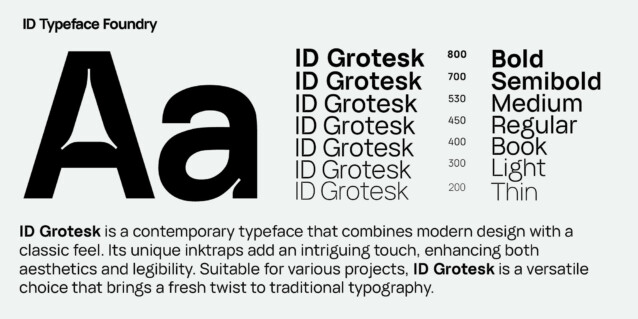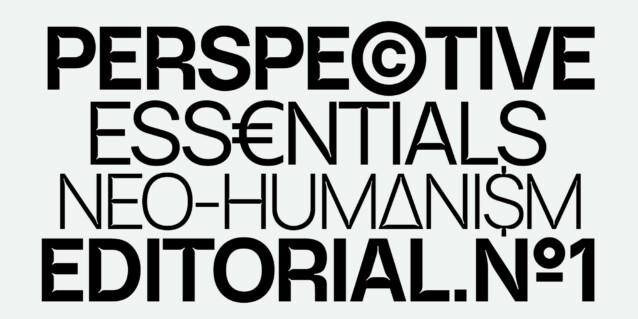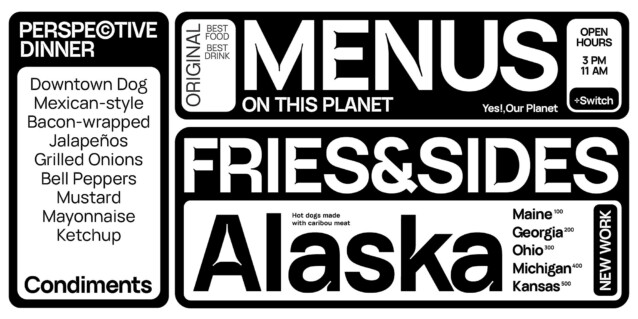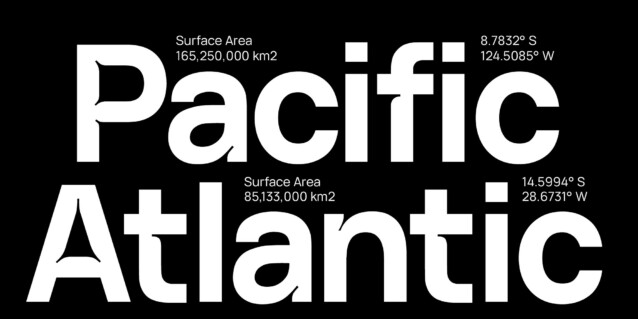
ID Grotesk Font is a contemporary typeface that combines modern design with a classic feel. Its unique inktraps add an intriguing touch, enhancing both aesthetics and legibility. Suitable for various projects, ID Grotesk is a versatile choice that brings a fresh twist to traditional typography.